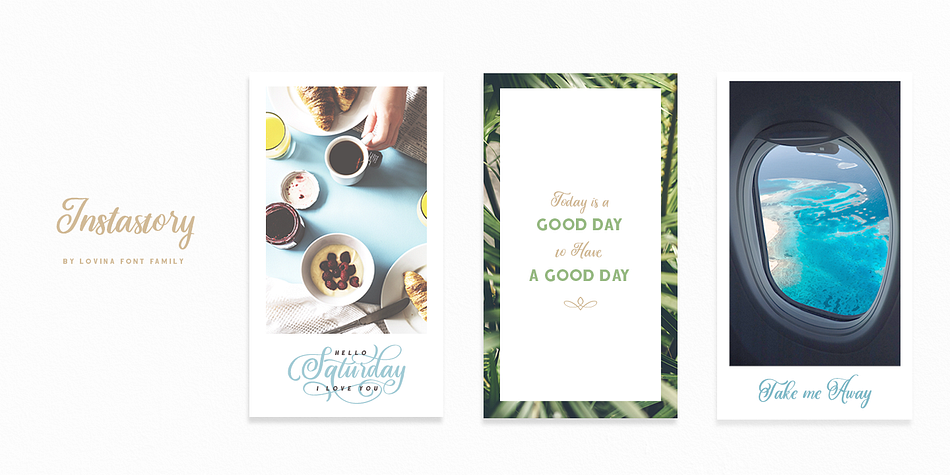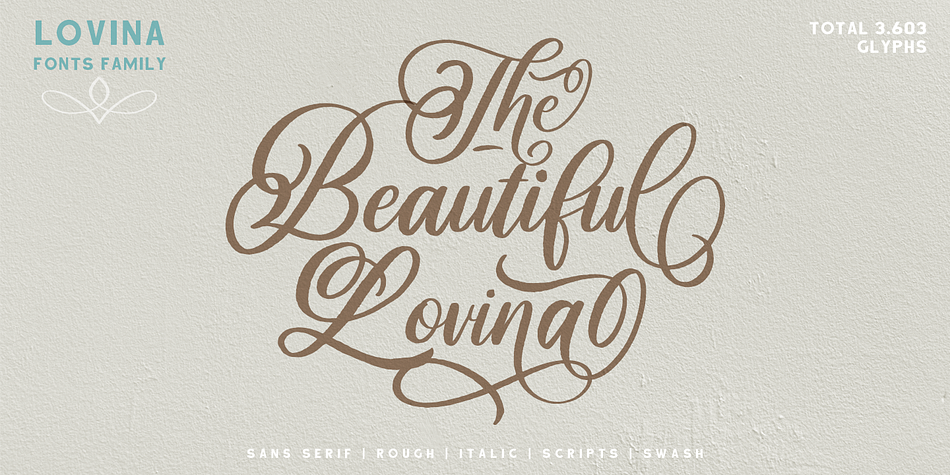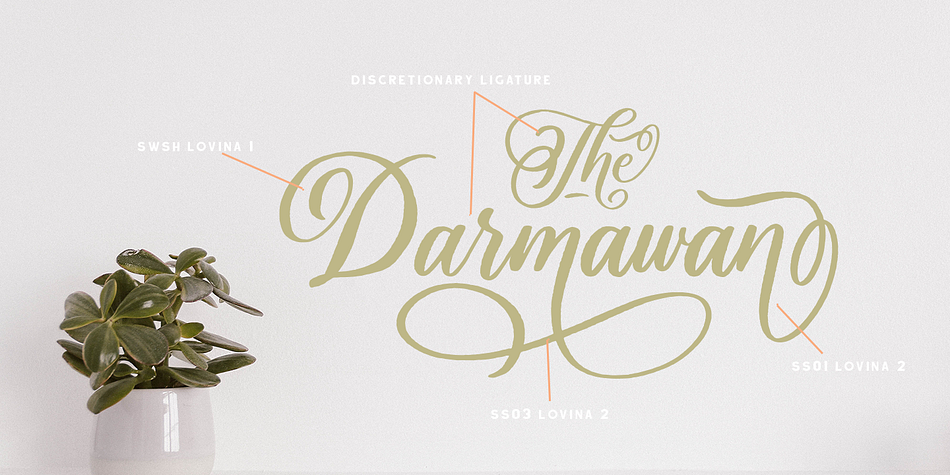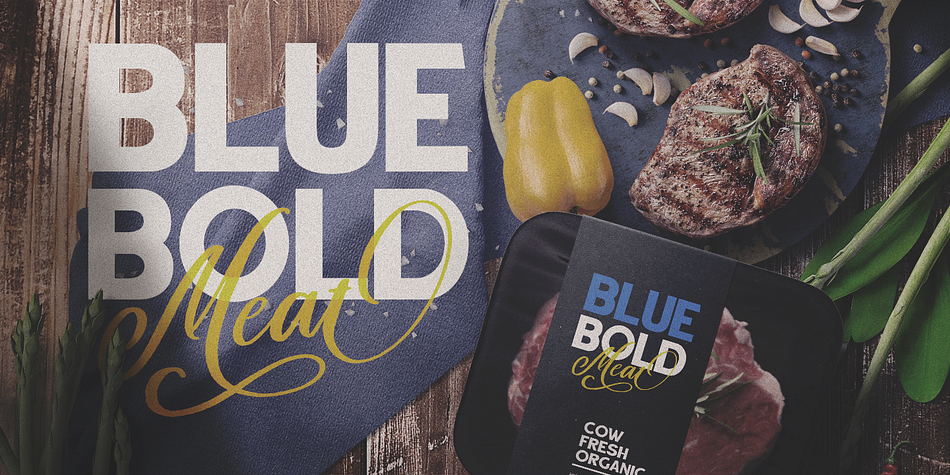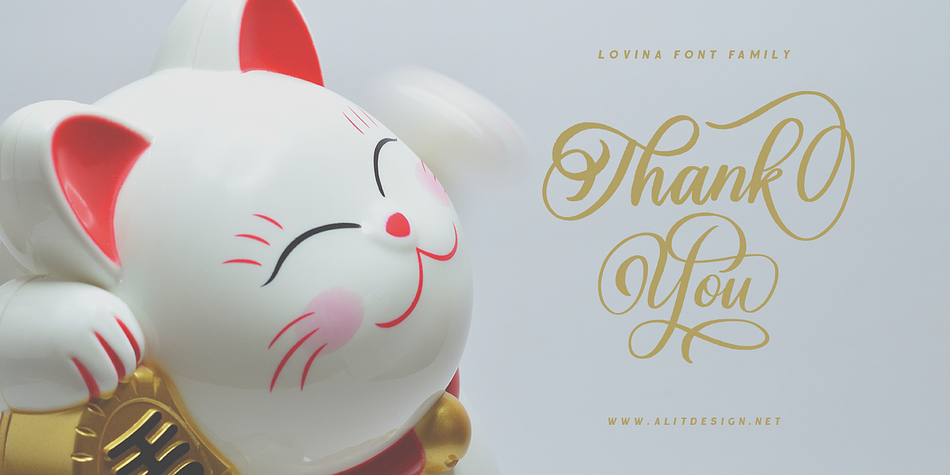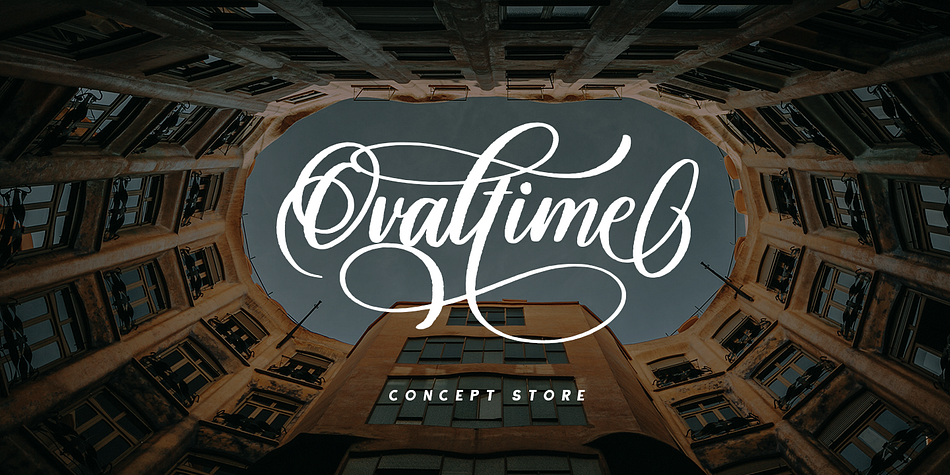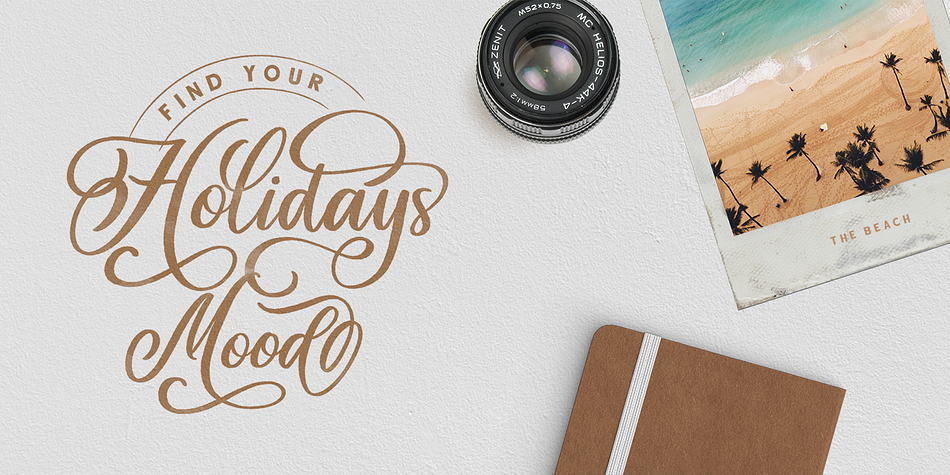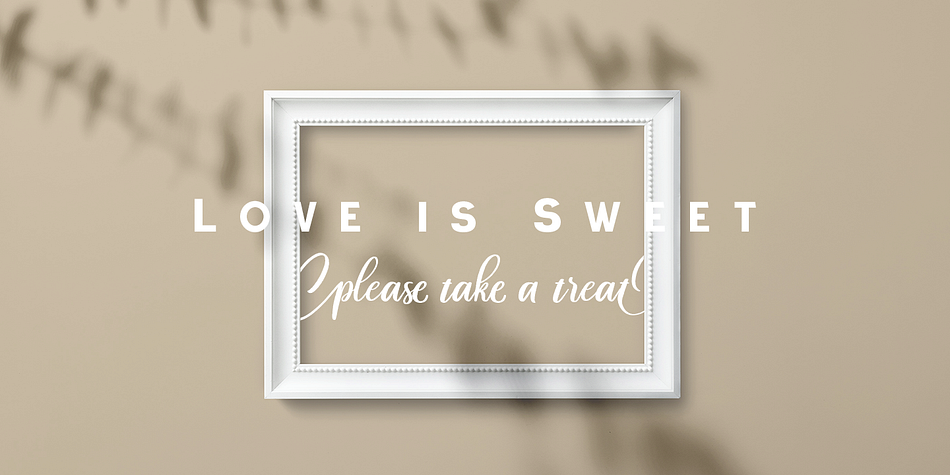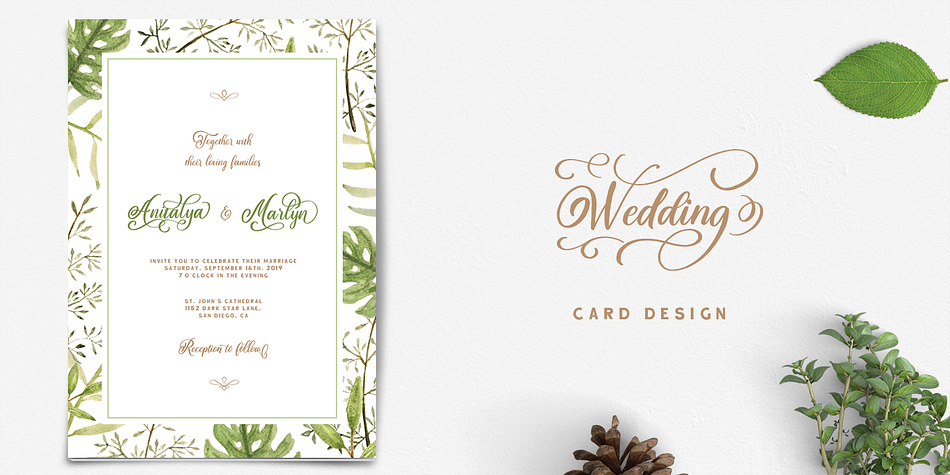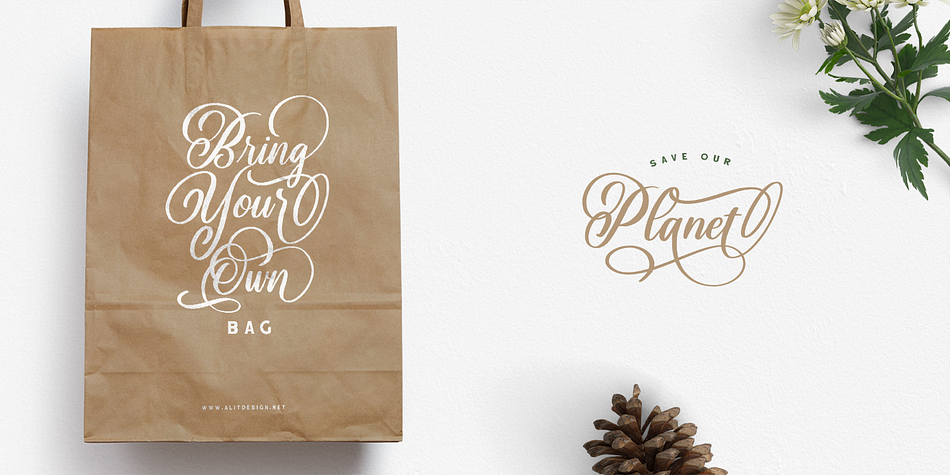
Lovina Fonts Family is a display sans, script and dingbat font family. This typeface has seven styles and was published by Alit Design.
Introducing Lovina Font Family is our first Font in 2019, has a handwritten script style with a touch of natural rough from the shape of the brush. For Scripts, Lovina fonts have 2 choices namely “Lovina Regular” and “Lovina 2 Regular” in this font script there are many alternative choices of characters from Swash Lowercase, SS01 to SS06.
For Lovina Sans Serif has 4 styles, namely, Lovina Sans Serif Regular, Italic, Rough and Rough Italic. In addition, Lovina Fonts Family also includes Lovina Swash which is a lot of choices and unique. If the total of all families has 3,603 Glyphs
Lovina Fonts Family is very worthy of being the newest collection in 2019 as a project design creation, social media quote, badges, logotype, fashion design etc.